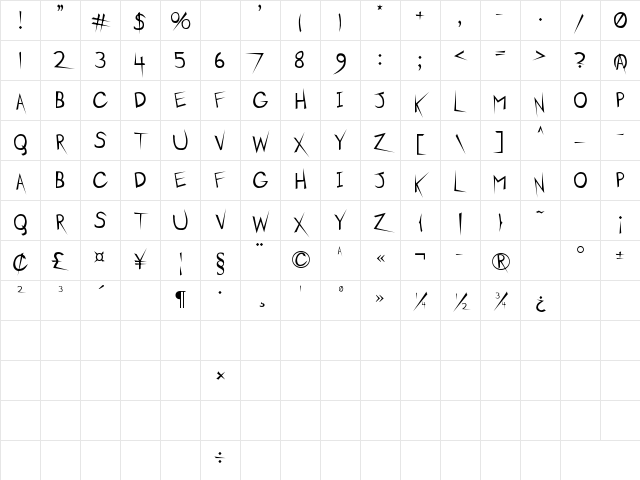
Complete Verdok Foundation Regular glyph index. Displaying only characters natively supported by Verdok Foundation Regular font.
Verdok Foundation is a composed and adaptable typeface that performs quietly and consistently across a wide range of design contexts.